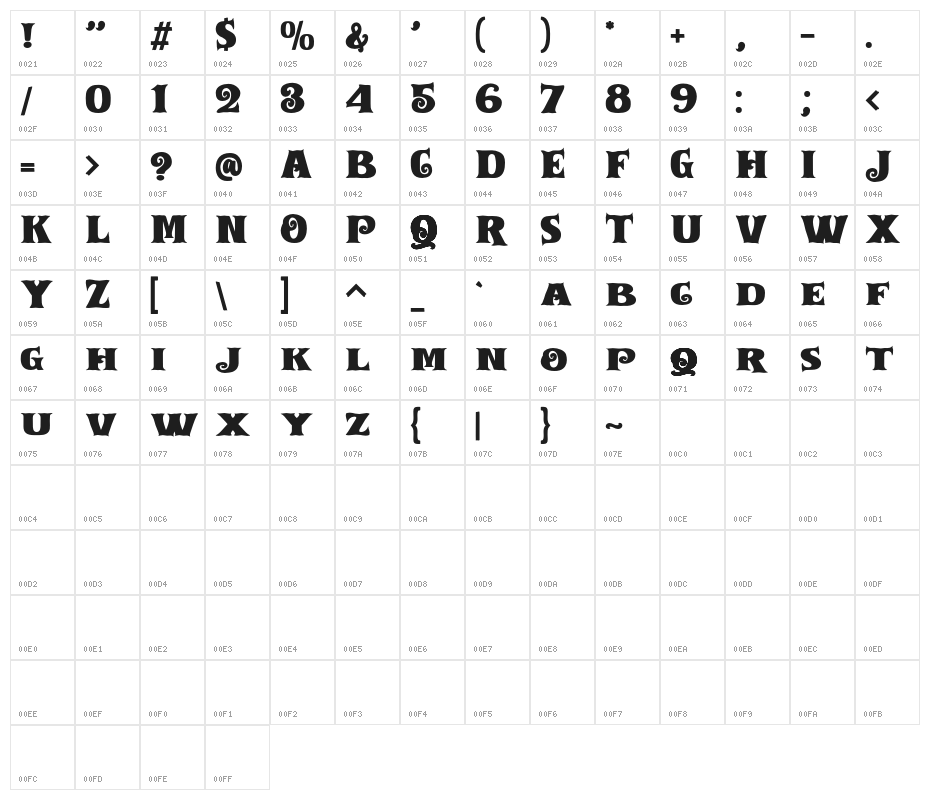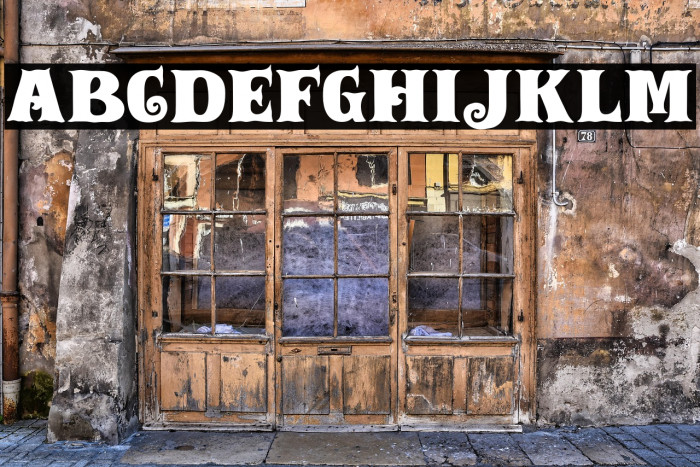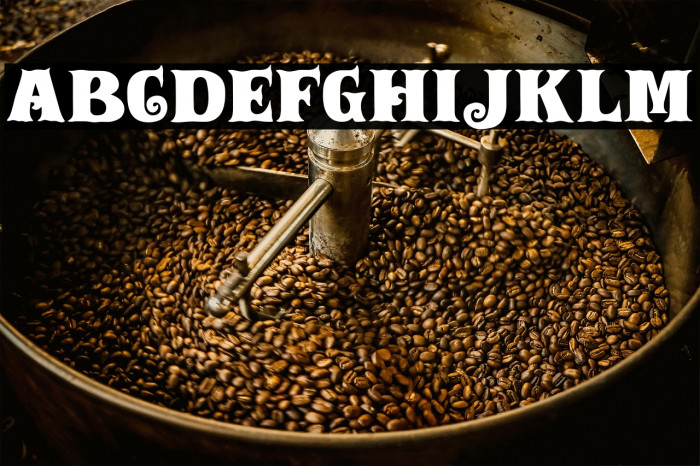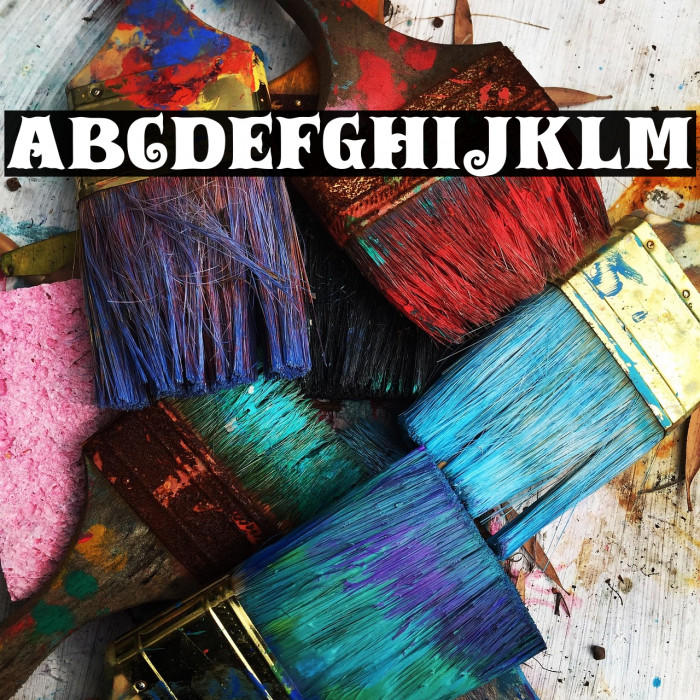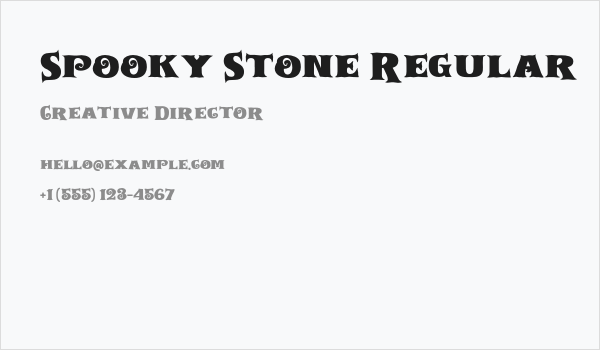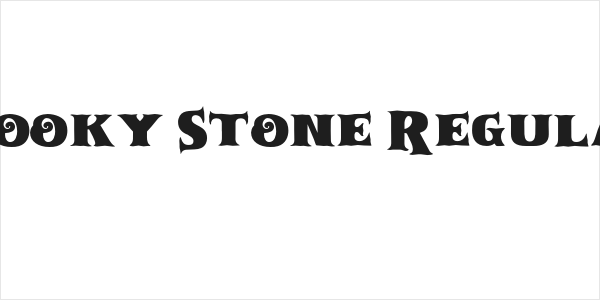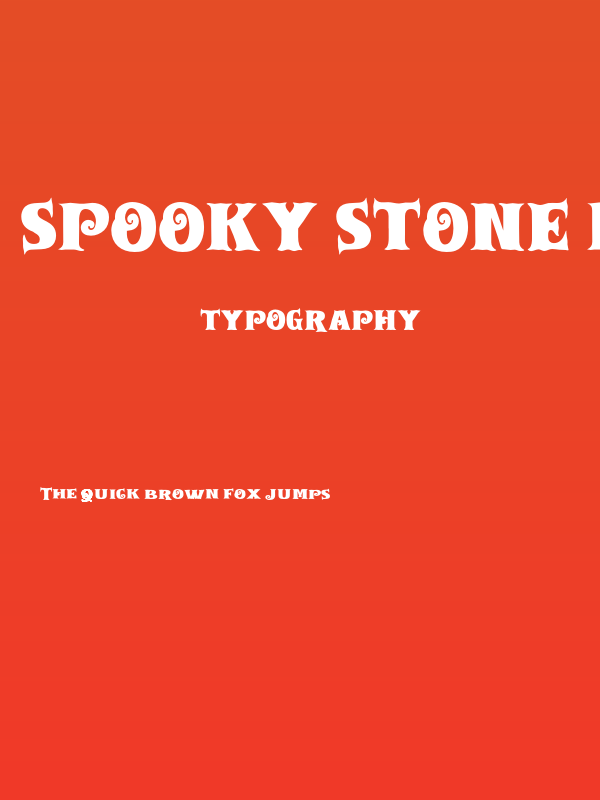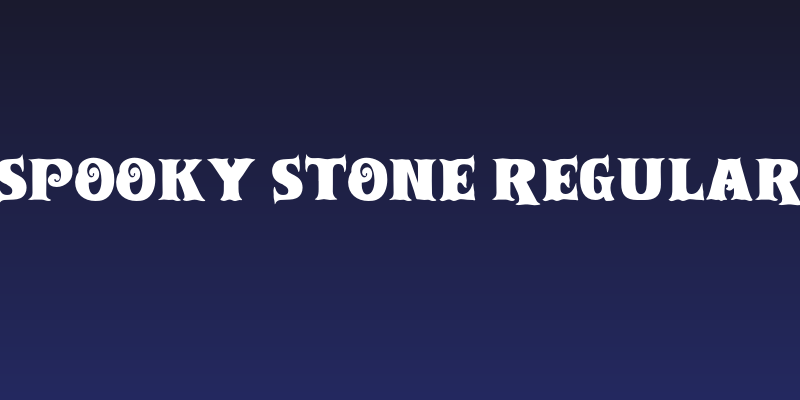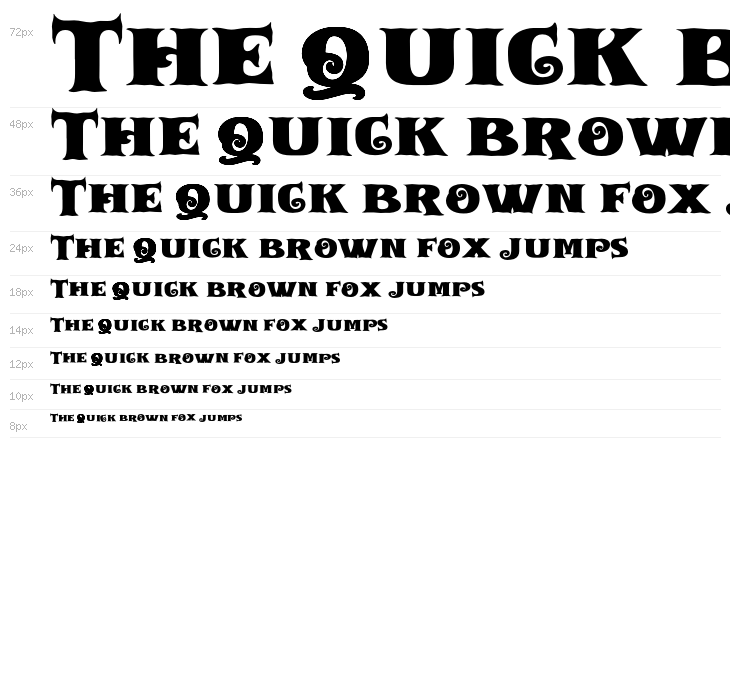
Spooky Stone Regular Font
Spooky Stone Regular Description
This font features a playful and spooky design, characterized by its bold and decorative style. The letters have a whimsical, slightly irregular shape, with some characters incorporating spiral or pointed elements that add a quirky, eerie feel. The font maintains a consistent weight throughout, providing a solid and impactful appearance. Its unique style makes it suitable for themes related to Halloween or anything requiring a mysterious or magical touch. The numbers and special characters follow the same design principles, ensuring a cohesive look across all text elements.
| Proposed Projects | Ideal for Halloween-themed posters, party invitations, haunted house flyers, or any project needing a mysterious or magical aesthetic. |